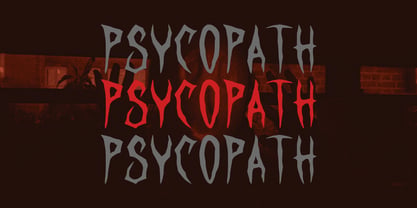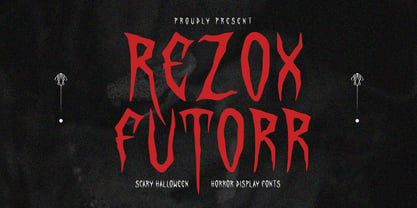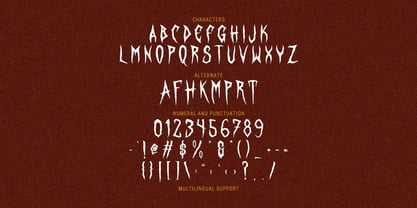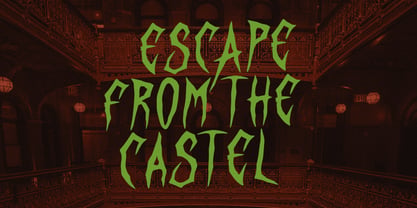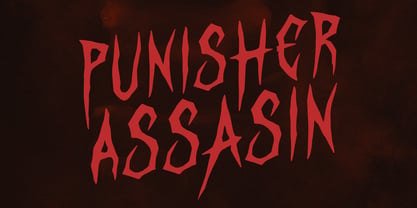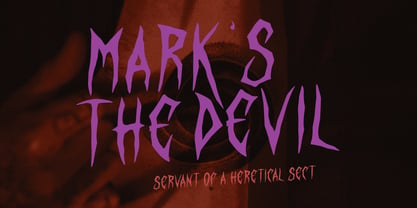
MC Rezox Futorr
by Maulana Creative
The MC Rezox Futorr Font Family was designed by Gilang Maulana and published by Maulana Creative. MC Rezox Futorr contains 1 styles. More about this family
Rezox Futorr is a chilling and expressive horror display font that embodies the essence of darkness, fear, and mystery. Featuring sharp, distorted letterforms and eerie irregular strokes, this font delivers a terrifying yet artistic aesthetic, making it ideal for Halloween themes, horror posters, scary movie titles, dark games, and haunted branding projects. Rezox Futorr evokes the sensation of something sinister lurking in the shadows, making it the perfect choice for designers seeking typography that resonates with fear and intensity. With its multilingual support and unique alternates, this font is versatile and striking, enhancing any design project that aims to create a spine-chilling atmosphere. Whether used in branding, editorial design, or digital media, Rezox Futorr stands out with its haunting visual appeal and captivating character.
Designers: Gilang Maulana
Foundry: Maulana Creative